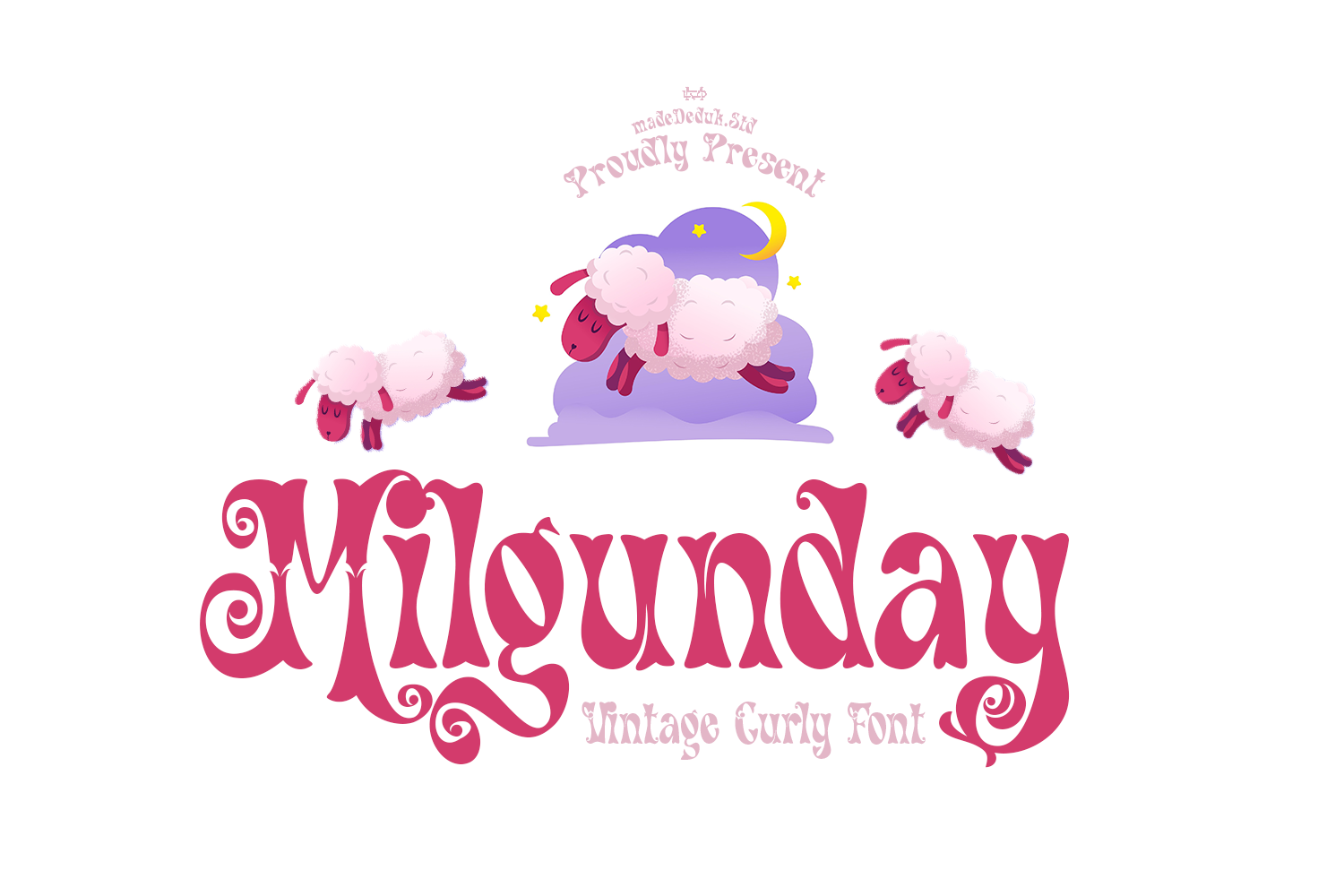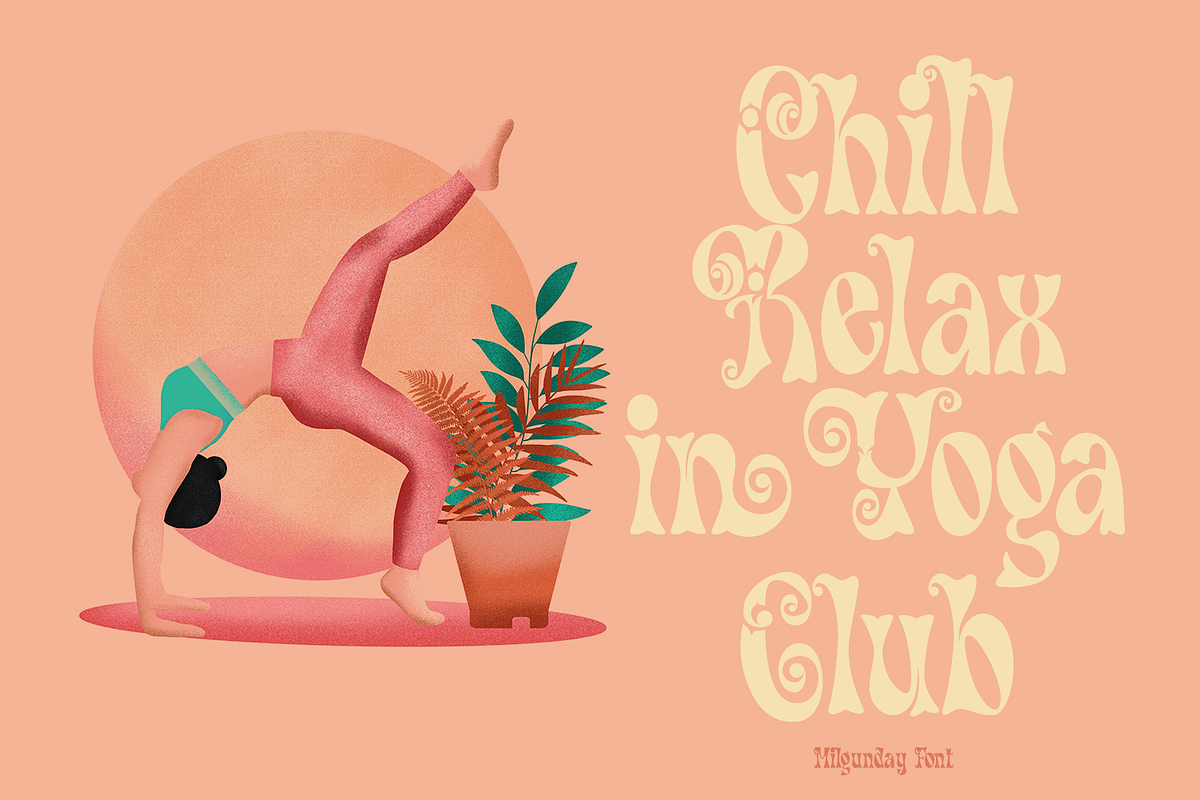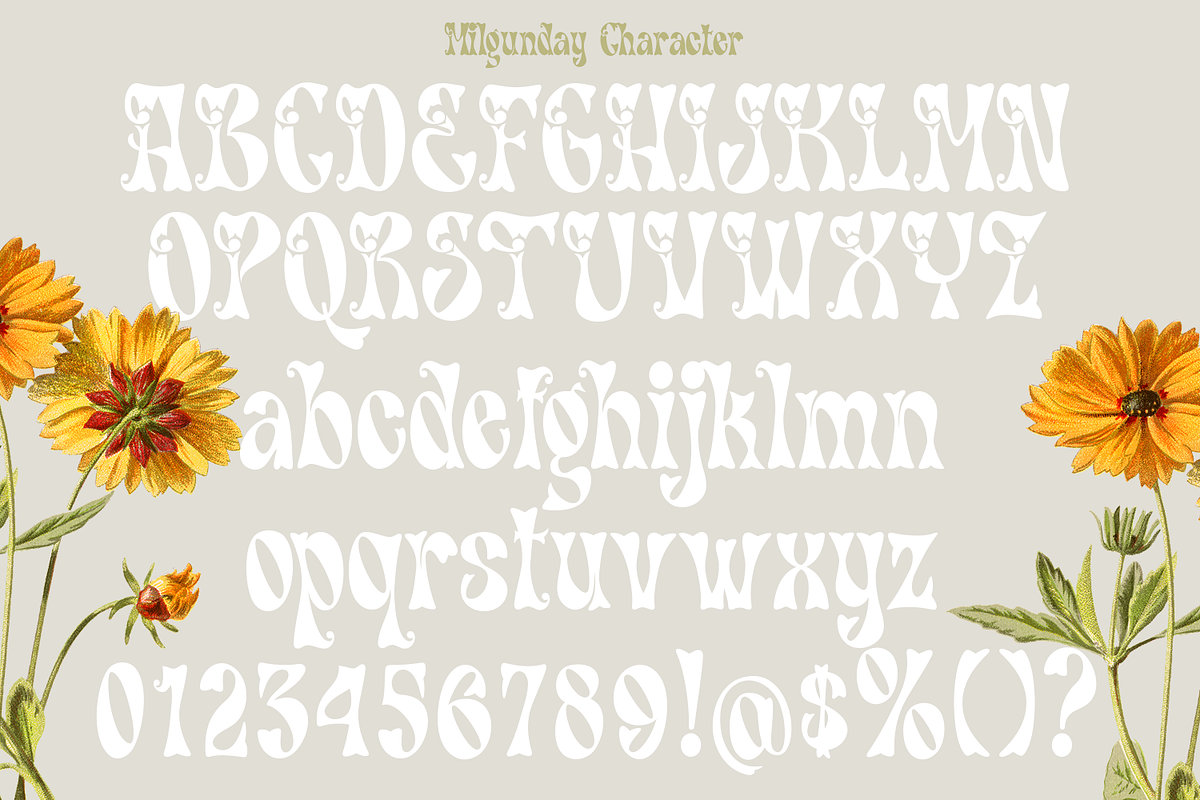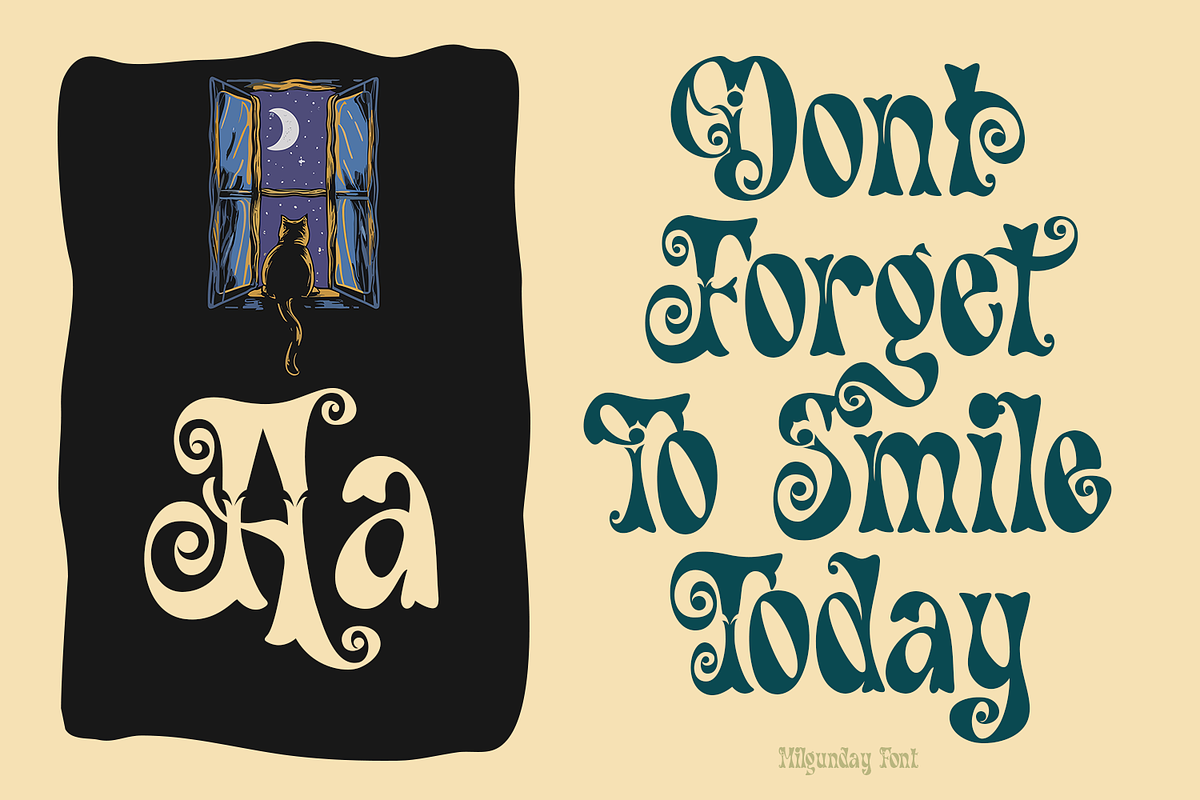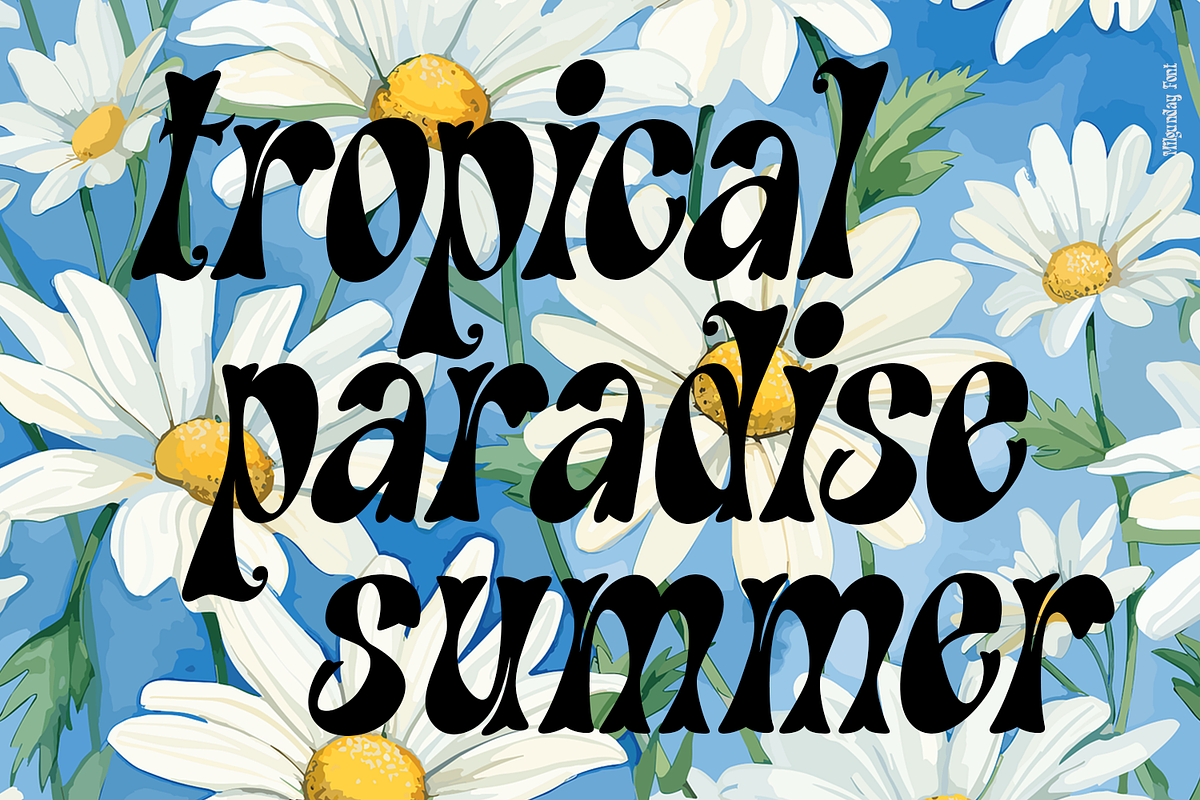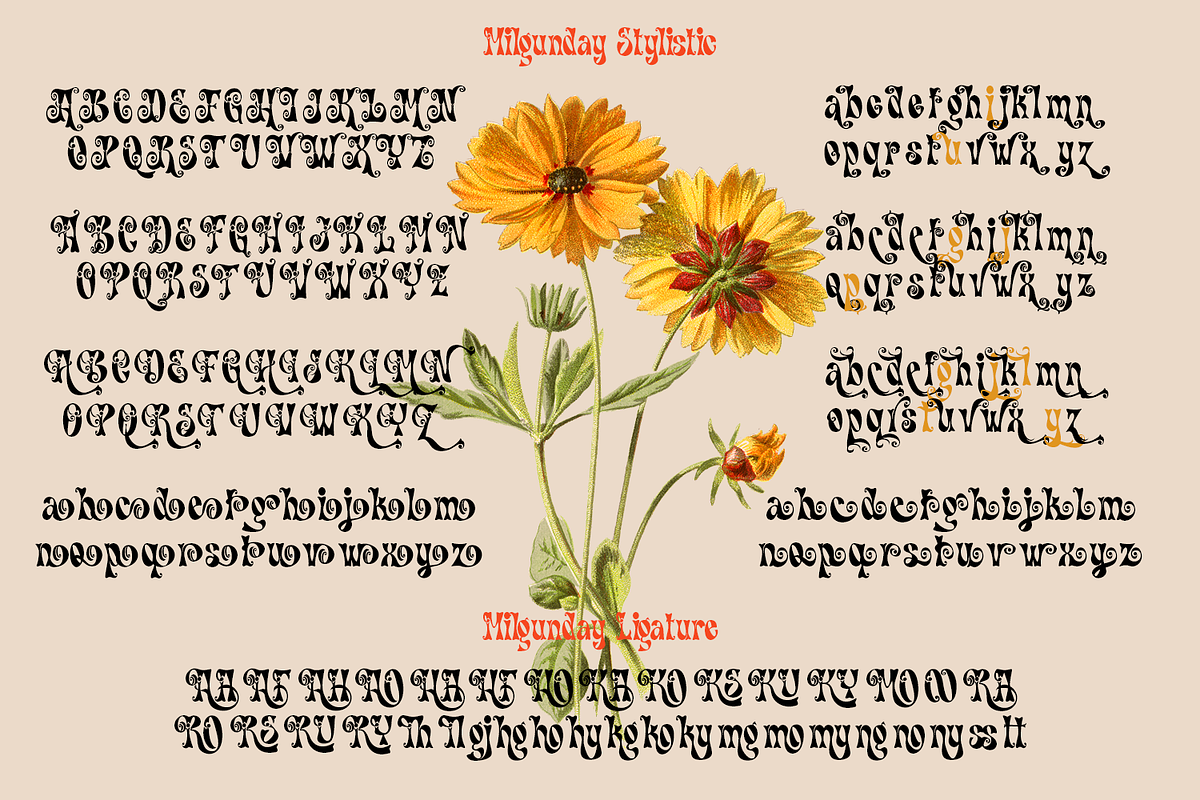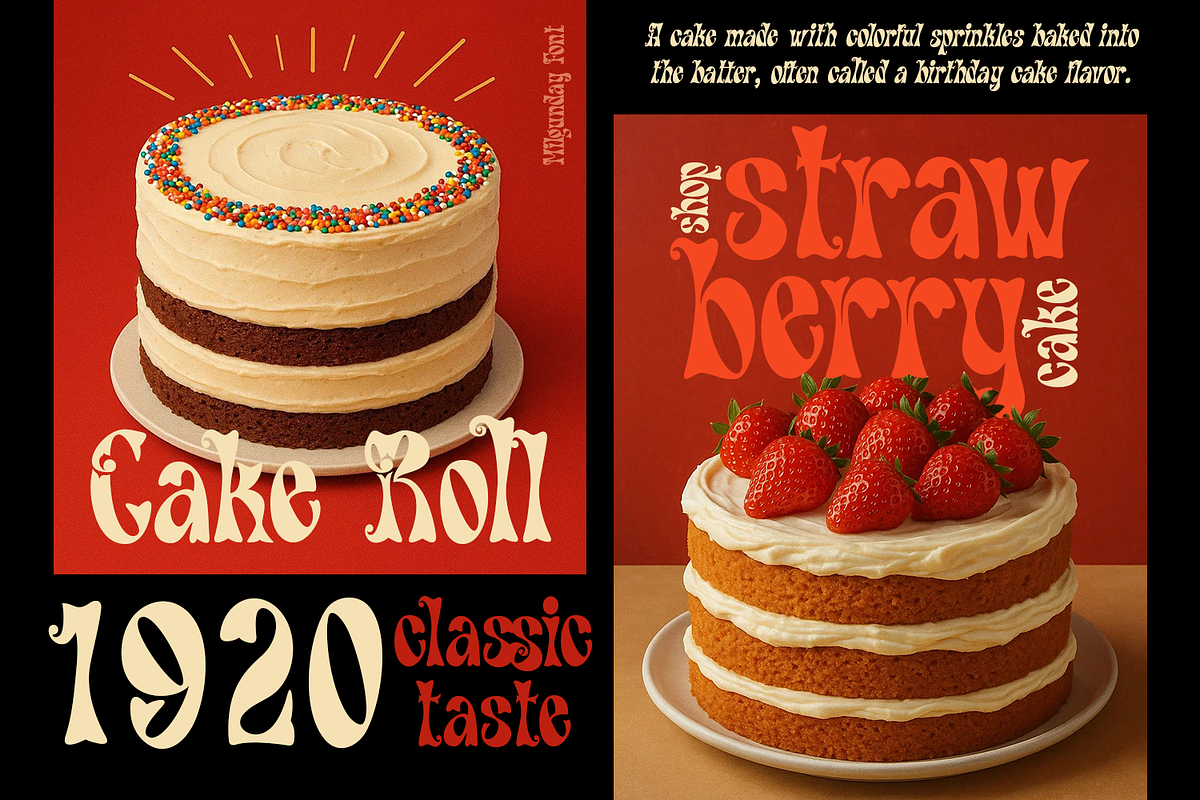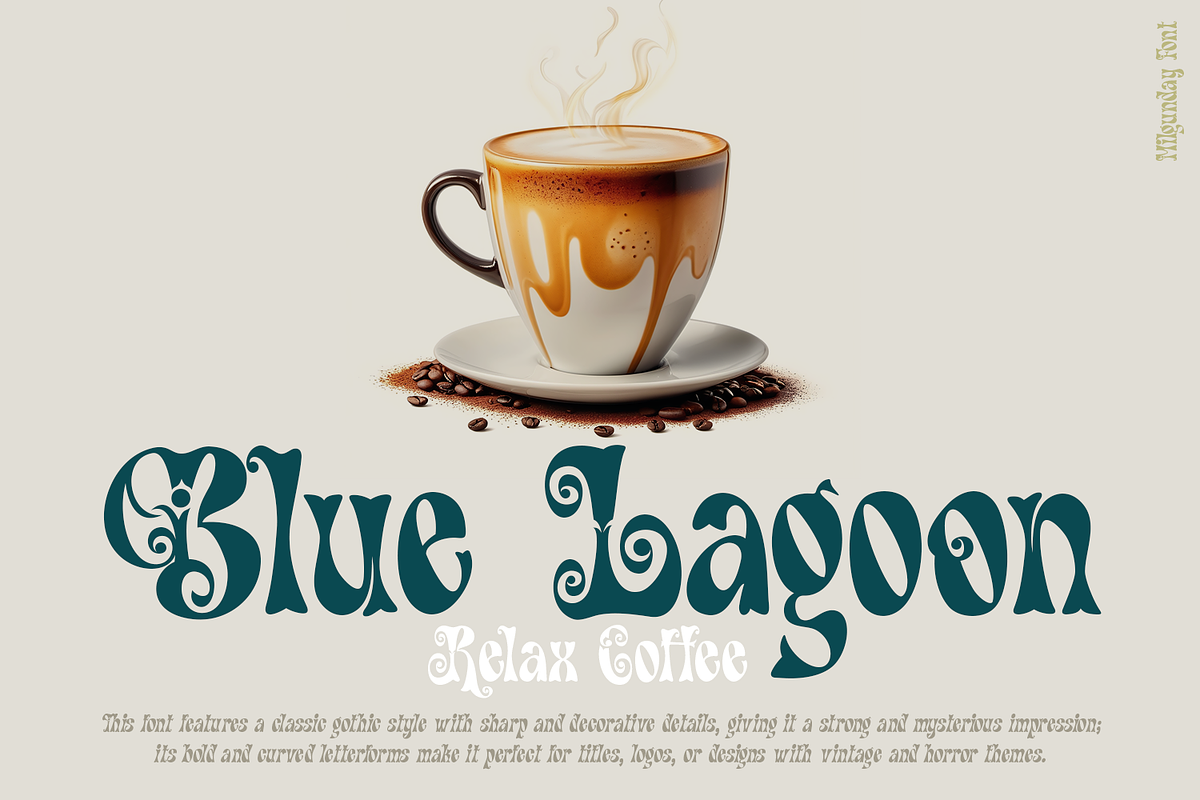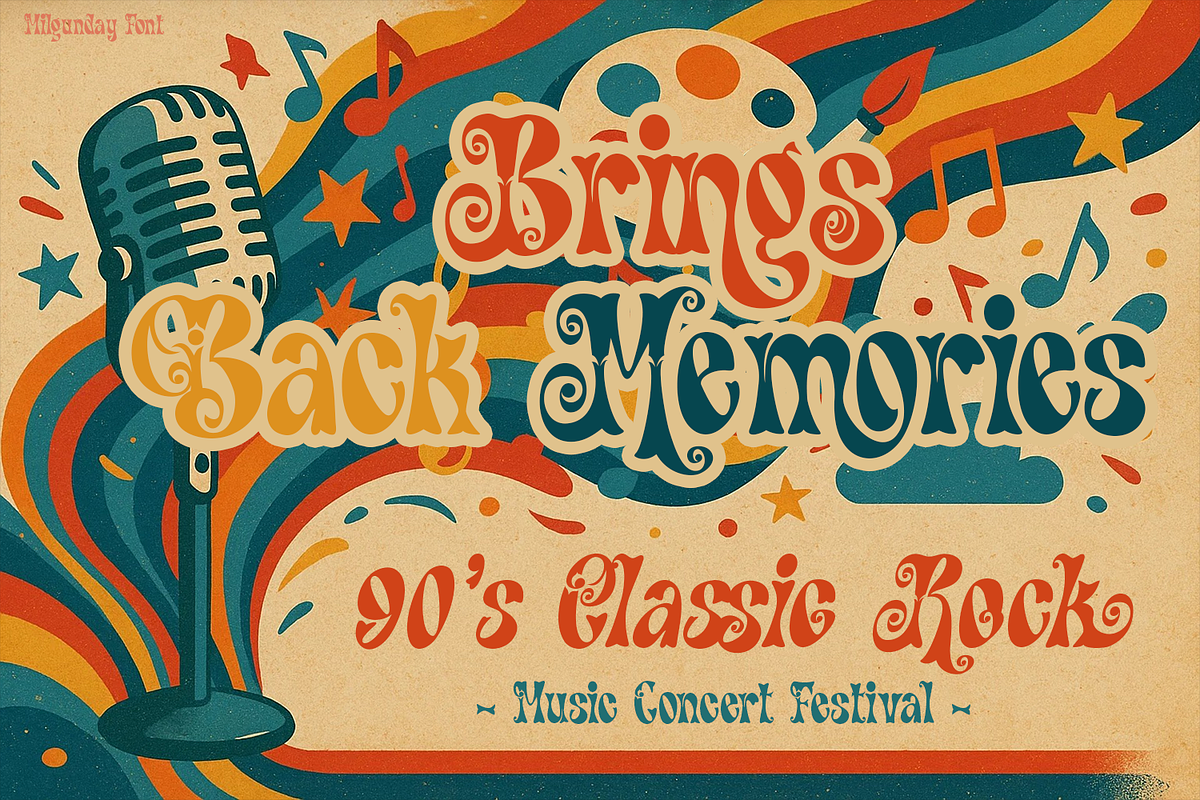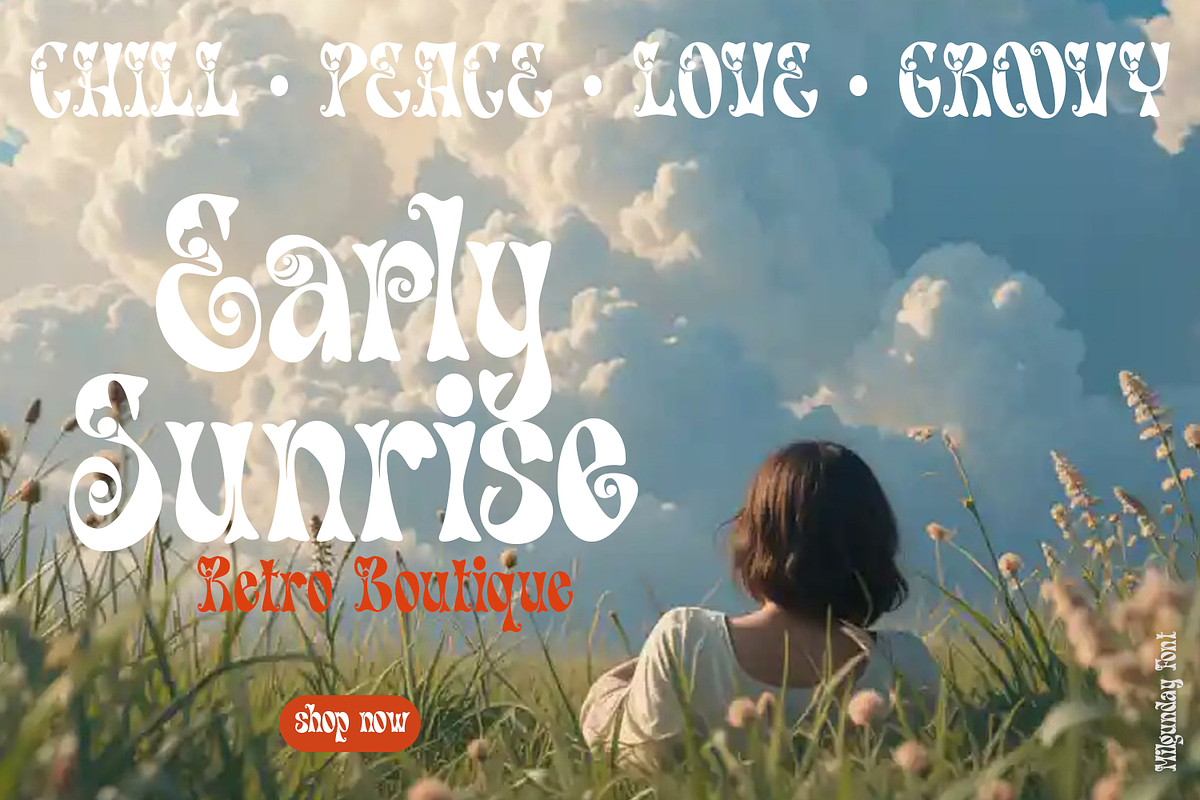
Milgunday Vintage Font
Introducing Milgunday, a vintage typeface that features a unique style characterized by bold, curved, and textured letterforms, imparting an artistic and experimental feel. This font provides numerous alternates and ligatures, enhancing its versatility, making it suitable for creative projects that aim to stand out as unique, bold, and distinctive. Perfect for various advertising purposes, it is ideal for both digital content and printed materials, ensuring your designs capture attention and convey a memorable message.